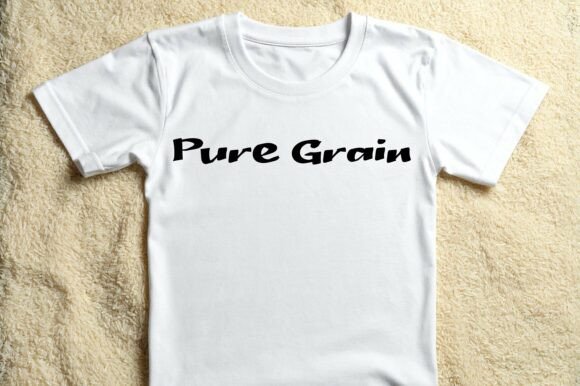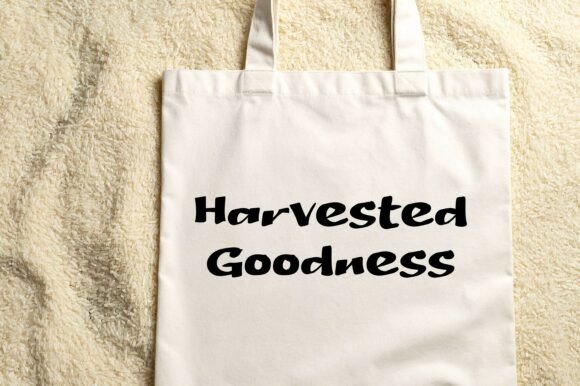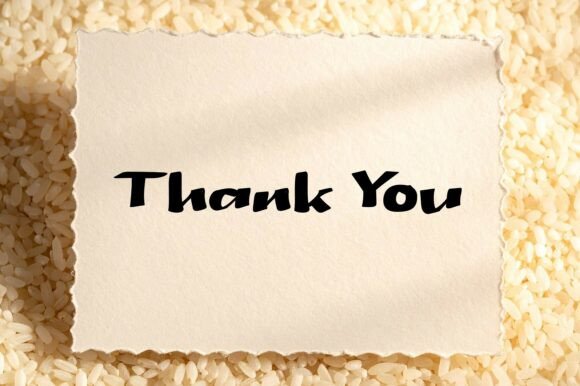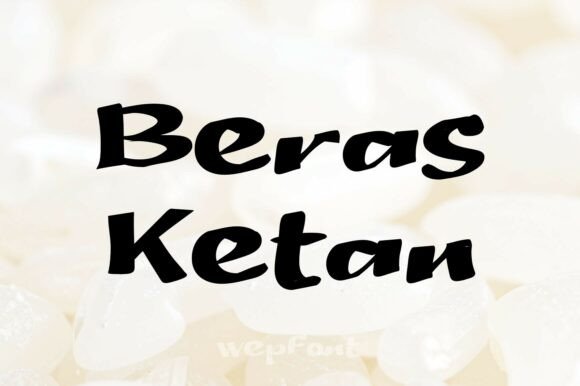
Savor the Charming Allure of Beras Ketan Font: A Hand-Crafted Typeface for the Soul
In the realm of typography, few fonts manage to capture the essence of rustic charm and organic allure as beautifully as Beras Ketan. This hand-crafted typeface is a masterpiece that interweaves exquisite imperfections and a homely persona to create a vibrant stamp of authenticity. With its natural fluidity and earthy elegance, Beras Ketan is the perfect addition to any design project that seeks to convey a sense of artisanal warmth and down-to-earth aesthetic.
The Inspiration Behind Beras Ketan
Beras Ketan’s design is inspired by the natural fluidity of brushstrokes, which gives it an organic and hand-crafted feel. The font’s creator aimed to capture the imperfections and uniqueness of hand-drawn letters, making each character a one-of-a-kind piece of art. The result is a typeface that exudes warmth, coziness, and a deep sense of connection to the natural world.
Perfect for Earthy and Artisanal Designs
Beras Ketan is a versatile font that can be used in a variety of design projects, from packaging and labeling to branding and advertising. Its earthy elegance and rustic charm make it an ideal choice for:
• Organic vegetable packaging: Add a touch of natural charm to your product packaging with Beras Ketan’s hand-crafted aesthetic.
• Handcrafted product labels: Give your products a unique and artisanal feel with Beras Ketan’s exquisite imperfections and homely persona.
• Charming cafes: Create a warm and inviting atmosphere in your cafe with Beras Ketan’s rustic charm and earthy elegance.
• Farm-to-table menu boards: Enhance the visual appeal of your menu boards with Beras Ketan’s natural fluidity and organic allure.
What Sets Beras Ketan Apart
In a world of mainstream fonts, Beras Ketan stands out for its inherent warmth and unique character. Its hand-crafted design and exquisite imperfections make it a true one-of-a-kind typeface that can add a touch of authenticity to any design project. With Beras Ketan, you can:
• Create a lasting impression: Beras Ketan’s rustic charm and earthy elegance can leave a deep, lasting memory on your audience.
• Add a personal touch: Beras Ketan’s hand-crafted aesthetic can add a personal touch to your designs, making them more relatable and engaging.
• Stand out from the crowd: Beras Ketan’s unique character and natural fluidity can help you differentiate your brand and designs from the competition.
Tips for Using Beras Ketan Effectively
To get the most out of Beras Ketan, here are some tips for using it effectively in your designs:
• Pair it with neutral colors: Beras Ketan’s earthy elegance can be paired perfectly with neutral colors like beige, brown, and green.
• Use it in large sizes: Beras Ketan’s natural fluidity and exquisite imperfections are best showcased in large sizes, making it perfect for headlines and titles.
• Experiment with textures: Beras Ketan’s hand-crafted aesthetic can be enhanced with textures like wood, stone, and paper.
In conclusion, Beras Ketan is a hand-crafted typeface that offers a unique and artisanal aesthetic to any design project. Its natural fluidity, exquisite imperfections, and homely persona make it a perfect choice for designers and crafters looking to add a touch of rustic charm and earthy elegance to their work. With its inherent warmth and unique character, Beras Ketan is sure to leave a deep, lasting memory on your audience.